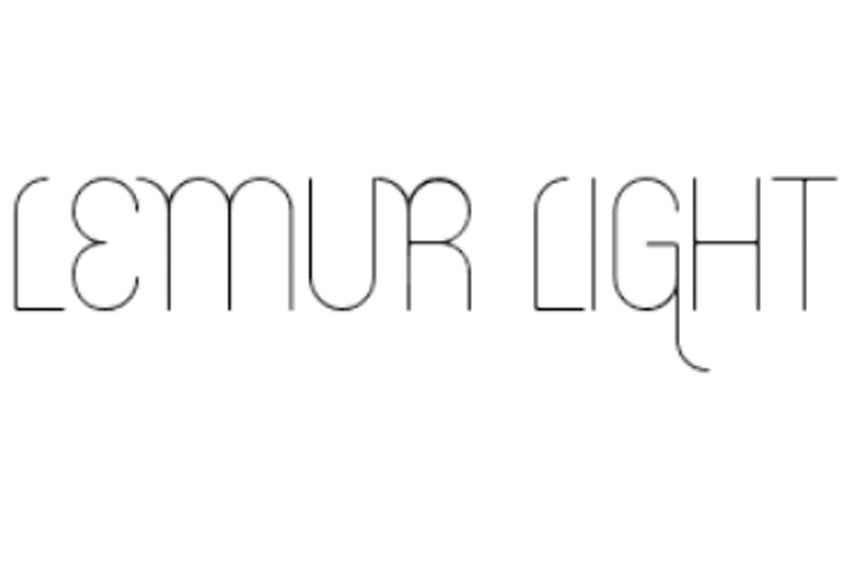
Lemur Light Font fits in headlines, logos, posters, flyers, invitations, name cards, branding materials, print media, editorial layouts, and many more.